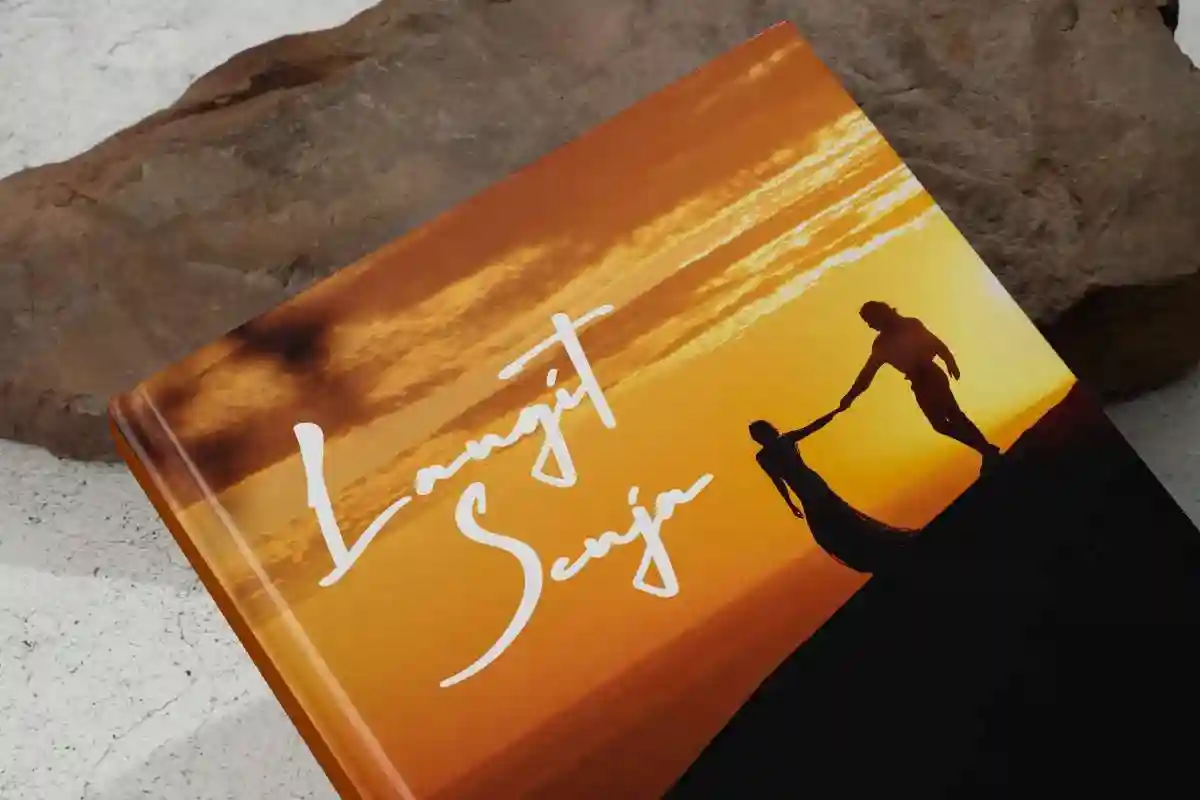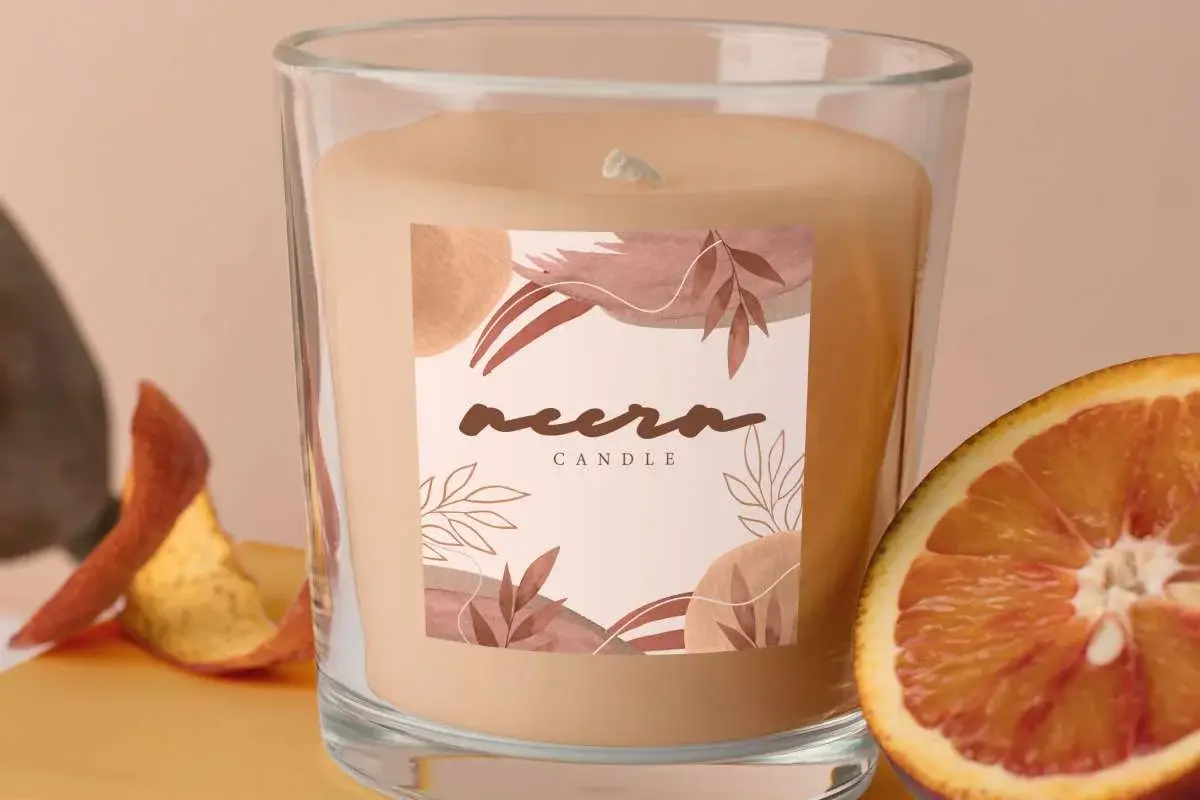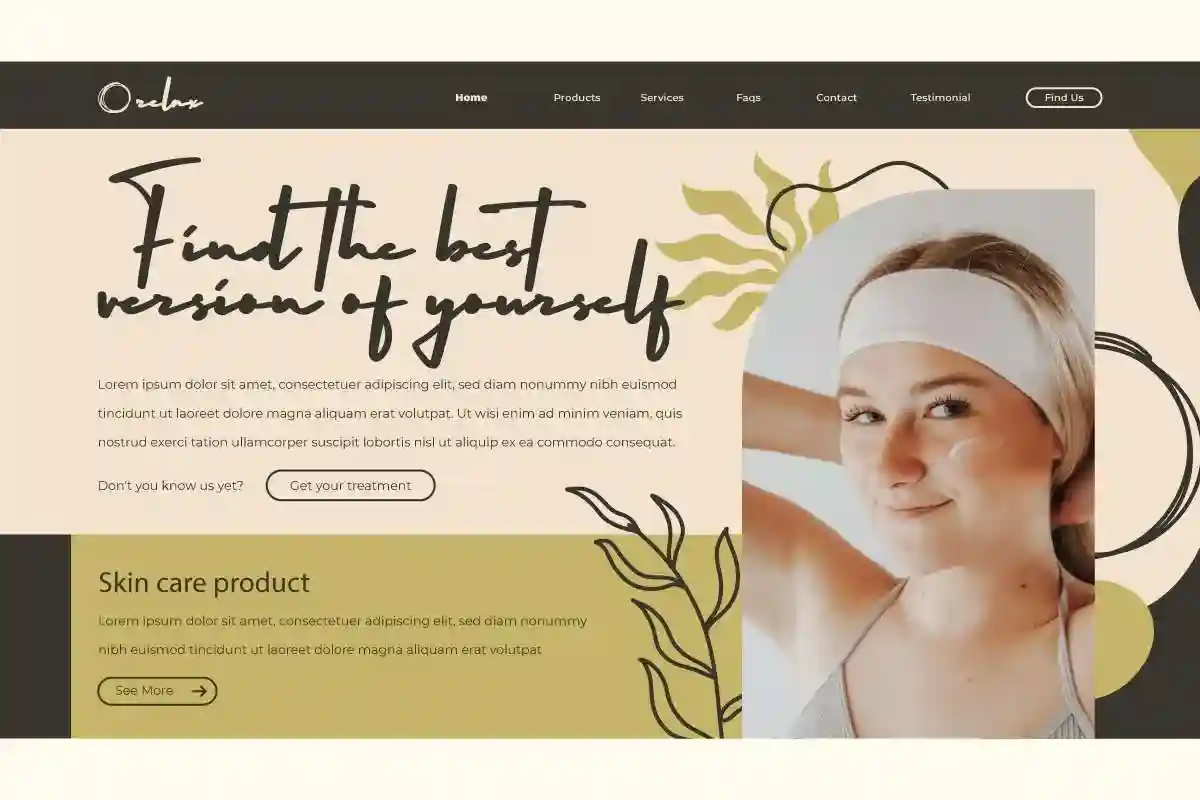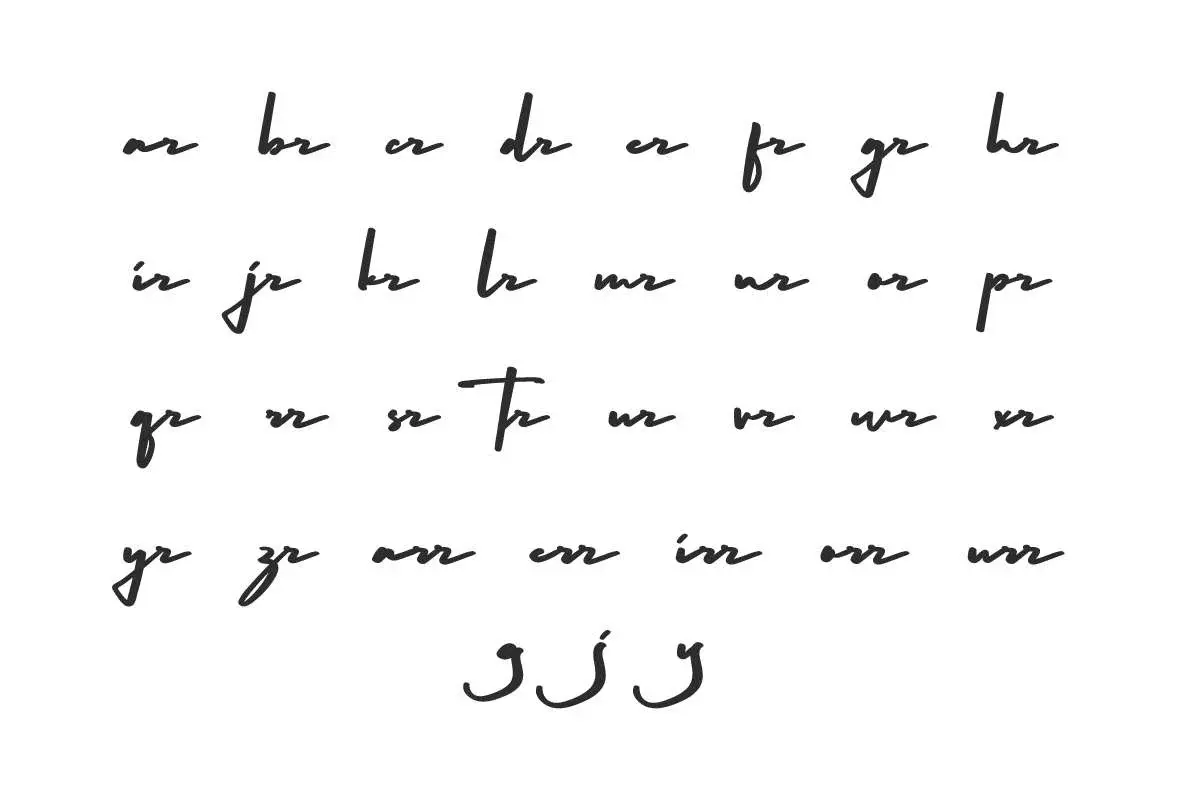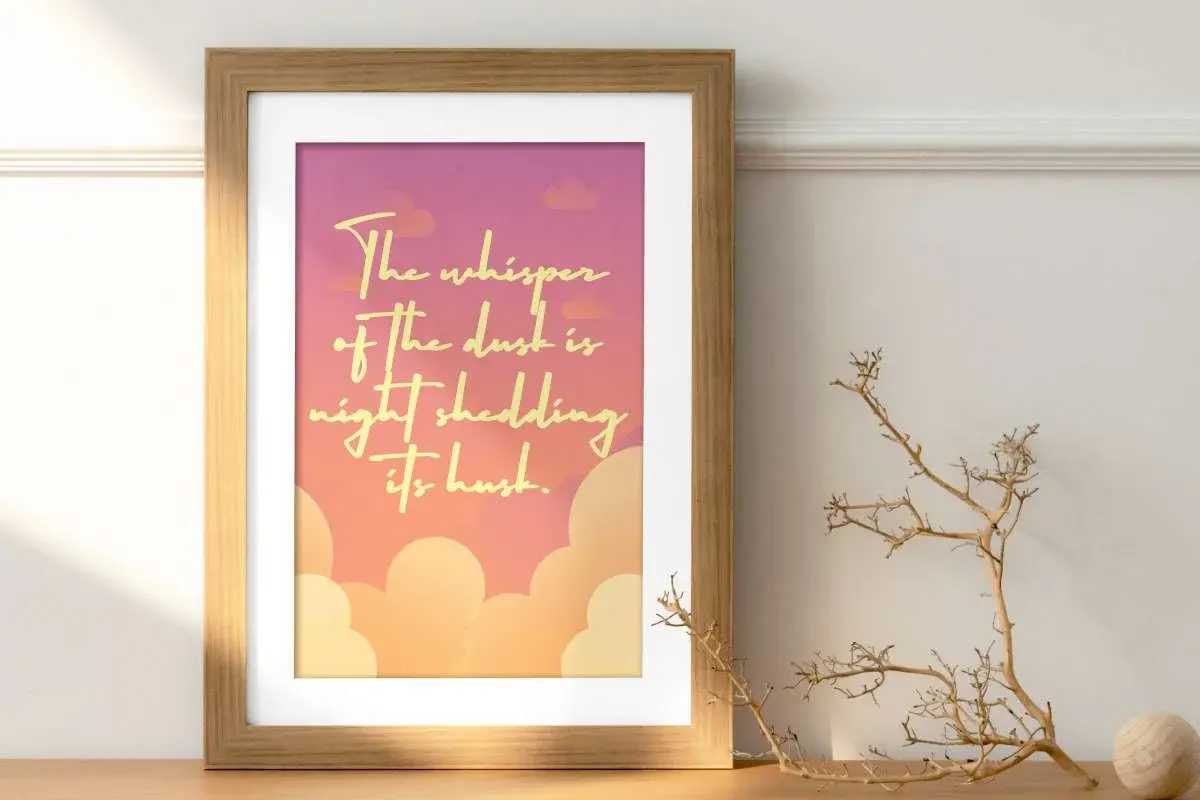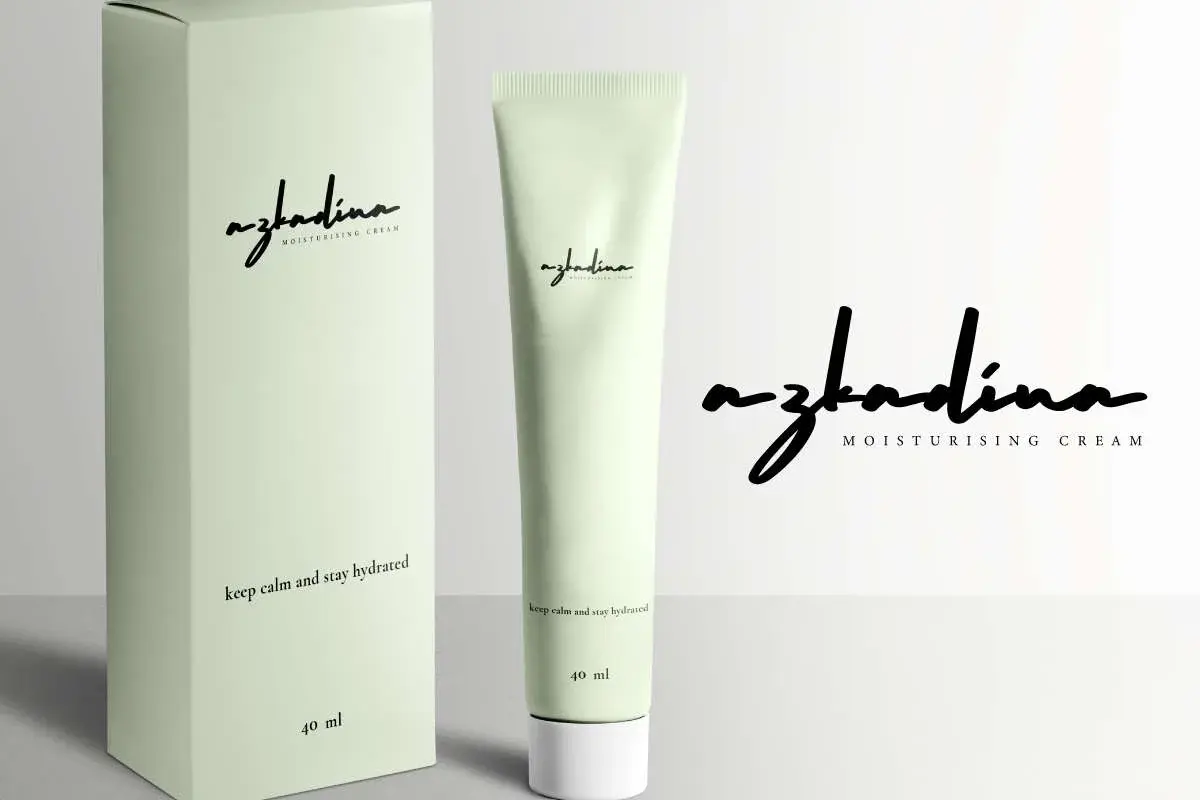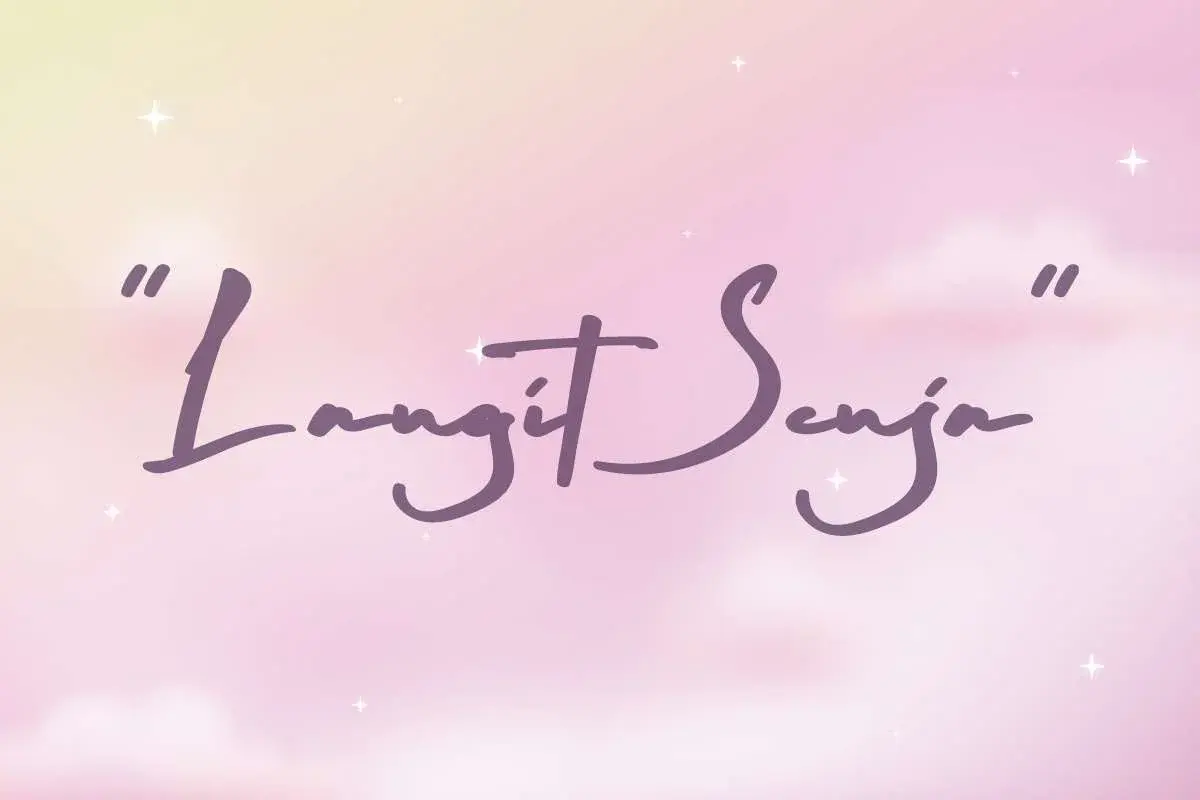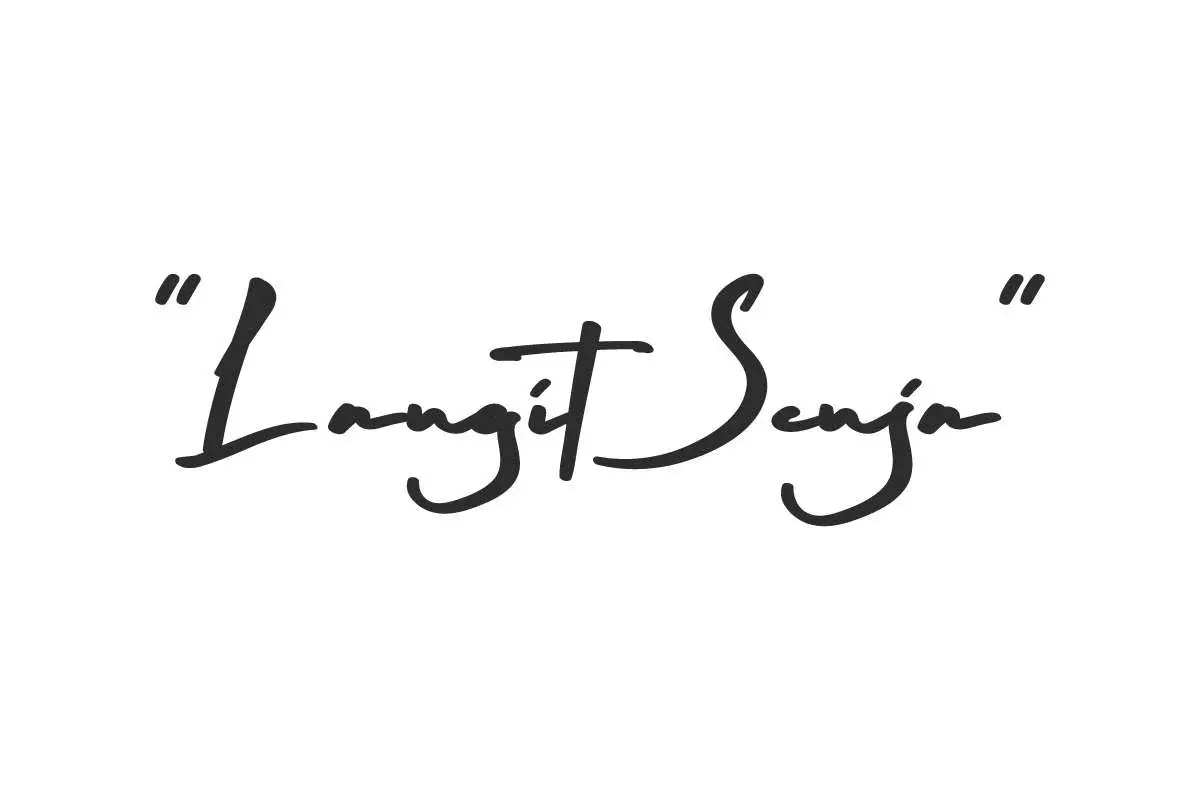
Langit Senja Font
Langit Senja Font is a strong beautiful brush ink writing font with a classic style appearance. It will versatile complement you in any creative project.
Langit Senja Font is a strong beautiful brush ink writing font with a classic style. It has its own charm that will enhance your design, such as apps, blog, brand logo, brochure, catalog, cover, creative template, greeting card, invitation, label, mockup design, product packaging, quote, screen print, signage, signature, stationery, sticker, tags, title, watermark, website, and many more!
Langit Senja Font comes with a full set of Uppercase and Lowercase Basic Characters, Number, Punctuation, Symbol, Ligature, and Alternate. The irregular typography makes it unique to your business industry needs, such as architect, bridal boutique, cosmetic, fashion, florist, furniture, graphic design, handicraft, photography, printing, publishing, real estate, restaurant, skincare, spa salon, wedding, writer, etc.